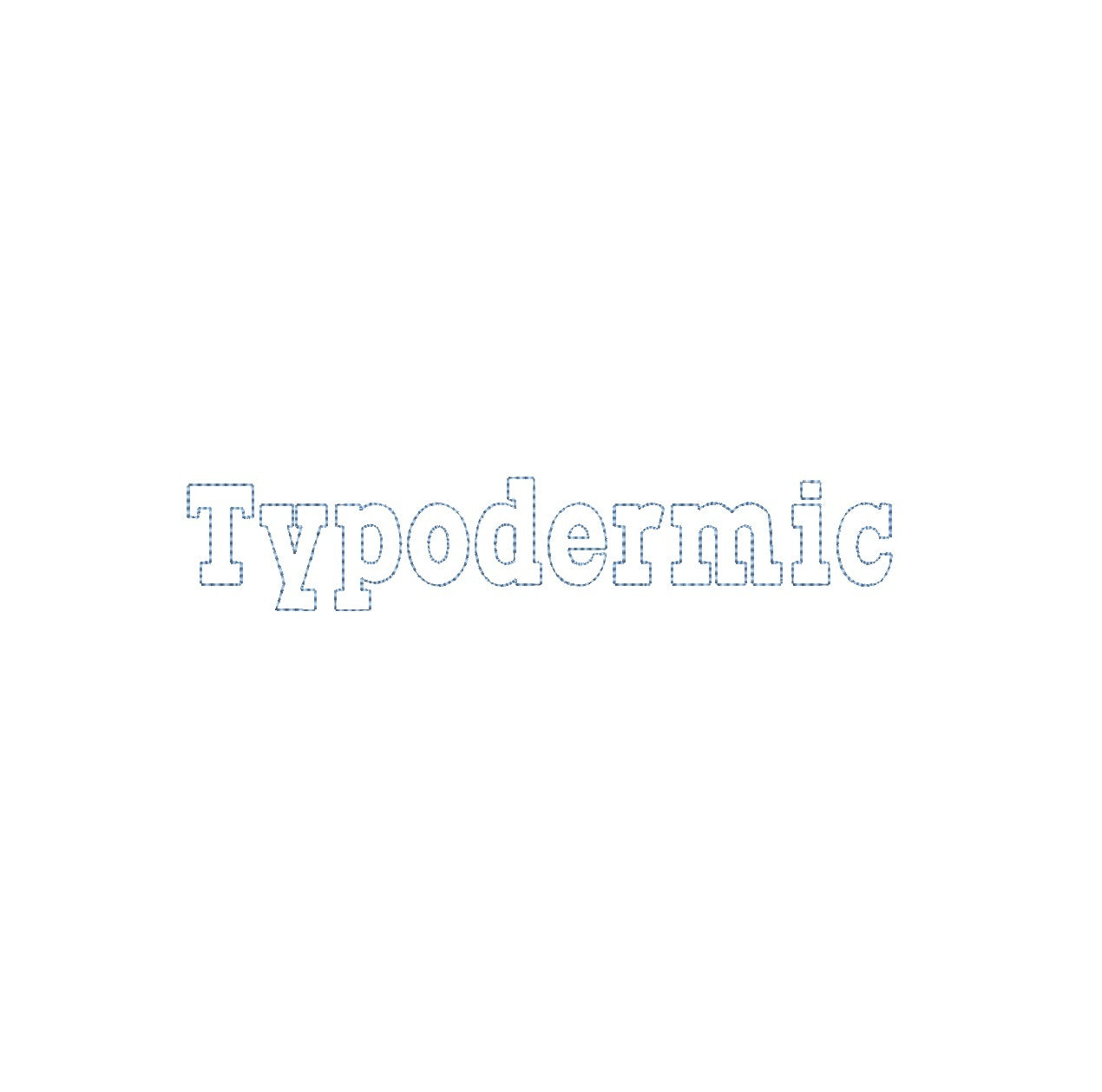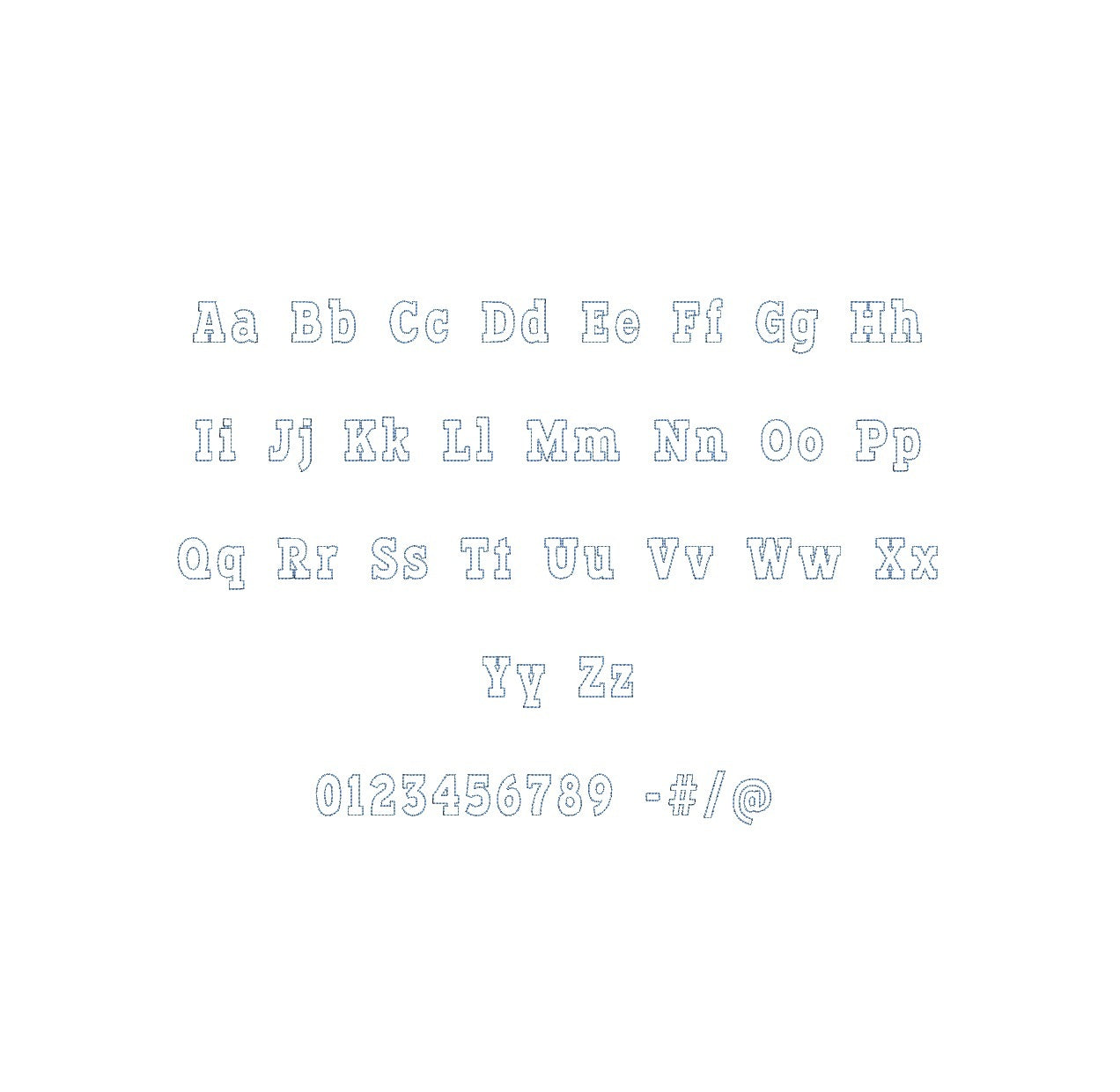
Discover the Typodermic Bean Stitch Outline ESA font, seamlessly compatible with Wilcom Studio e4.5.6 and Hatch 3 versions and above. Elevate your embroidery projects with this unique font that balances contemporary aesthetics and timeless charm. Engineered for precision, the Bean Outline ESA font adds distinctiveness to your designs, whether for monogramming, embellishments, or personalized creations. Enjoy seamless integration, flawless stitching, and top-tier quality. Elevate your embroidery endeavors today with the Typodermic Bean Stitch Outline ESA font, an essential for Wilcom Studio and Hatch users. Unleash creativity and transform your designs effortlessly with this must-have font.